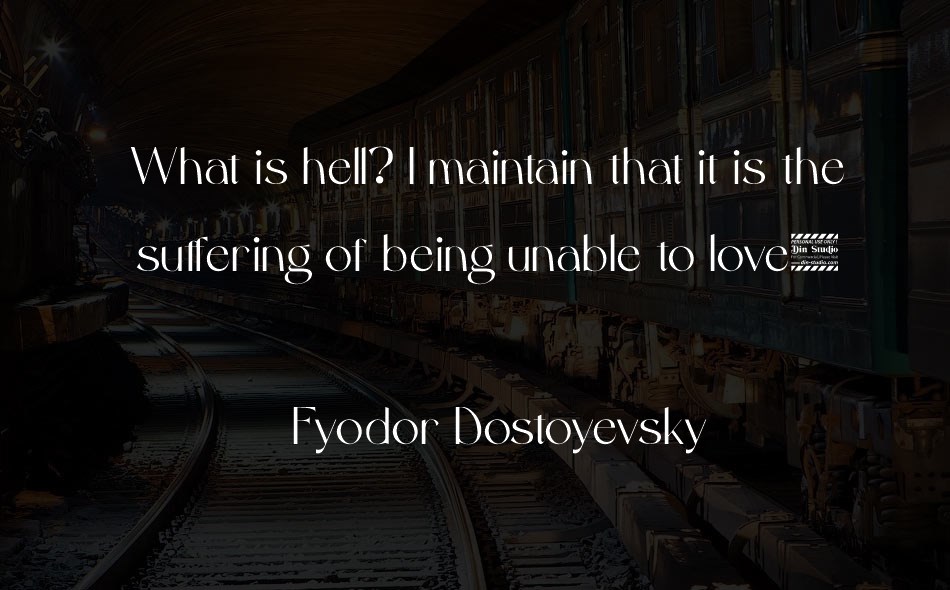
Rivage font
For a dramatic design result, you can take it up a notch with our lovely font, Rivage. It is an elegant sans
serif font. This font is quite enigmatic, in that its geometric but also has an open curves. The result is a font
that looks friendly and professional at the same time. Also, Rivage is versatile enough to be used on tittle or
body text.
Features:
• Stylistic Sets
• Ligatures
• Alternates
• Multilingual Supports
• Numerals and Punctuation